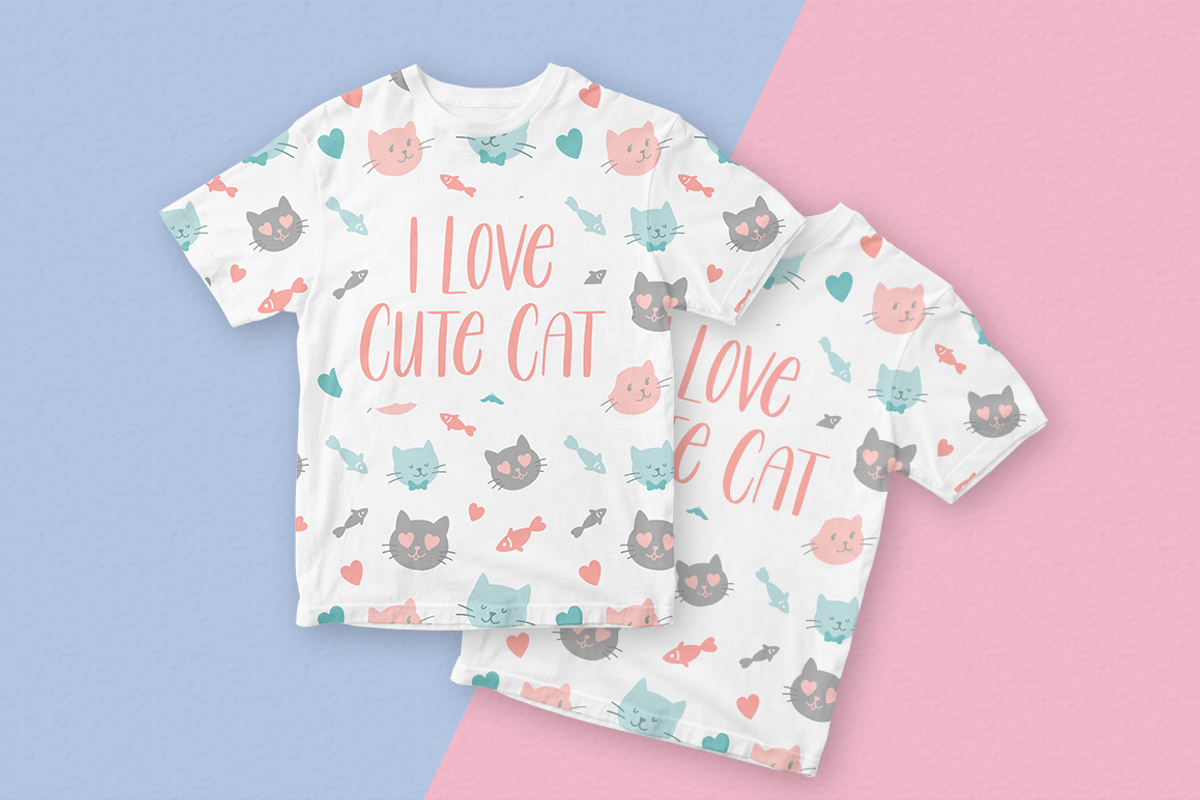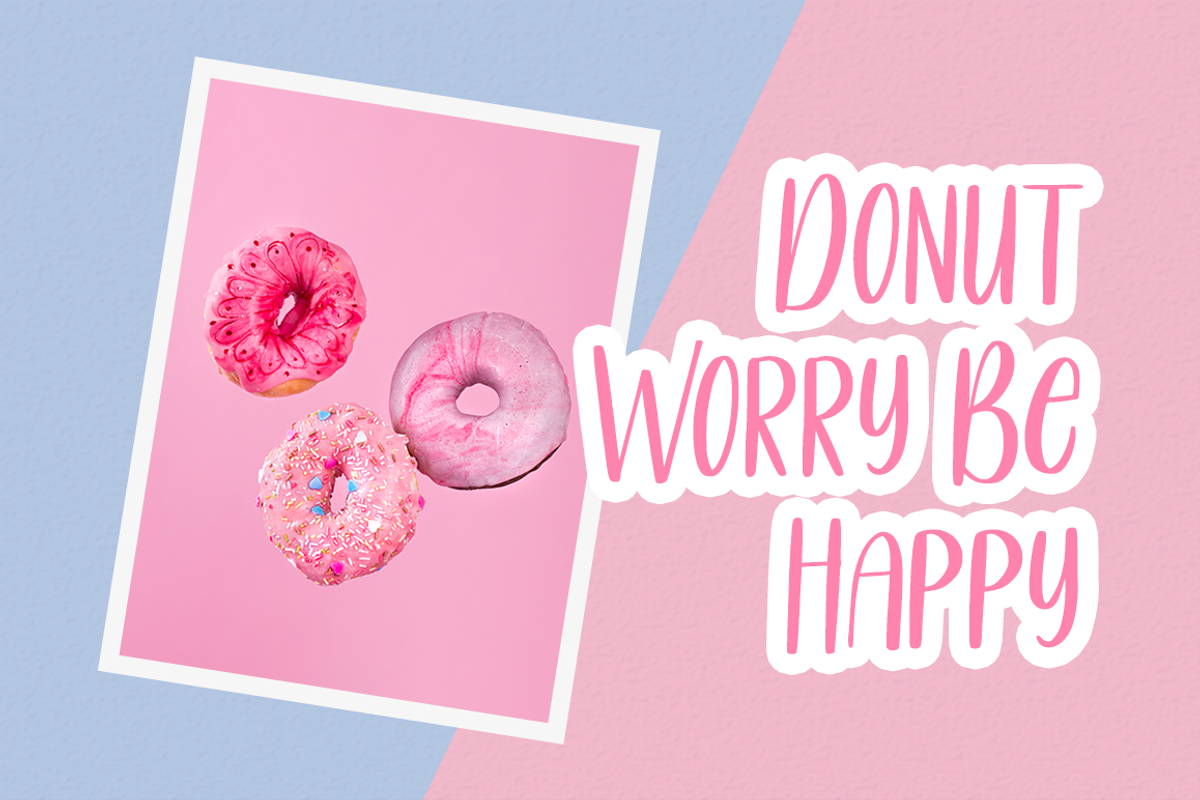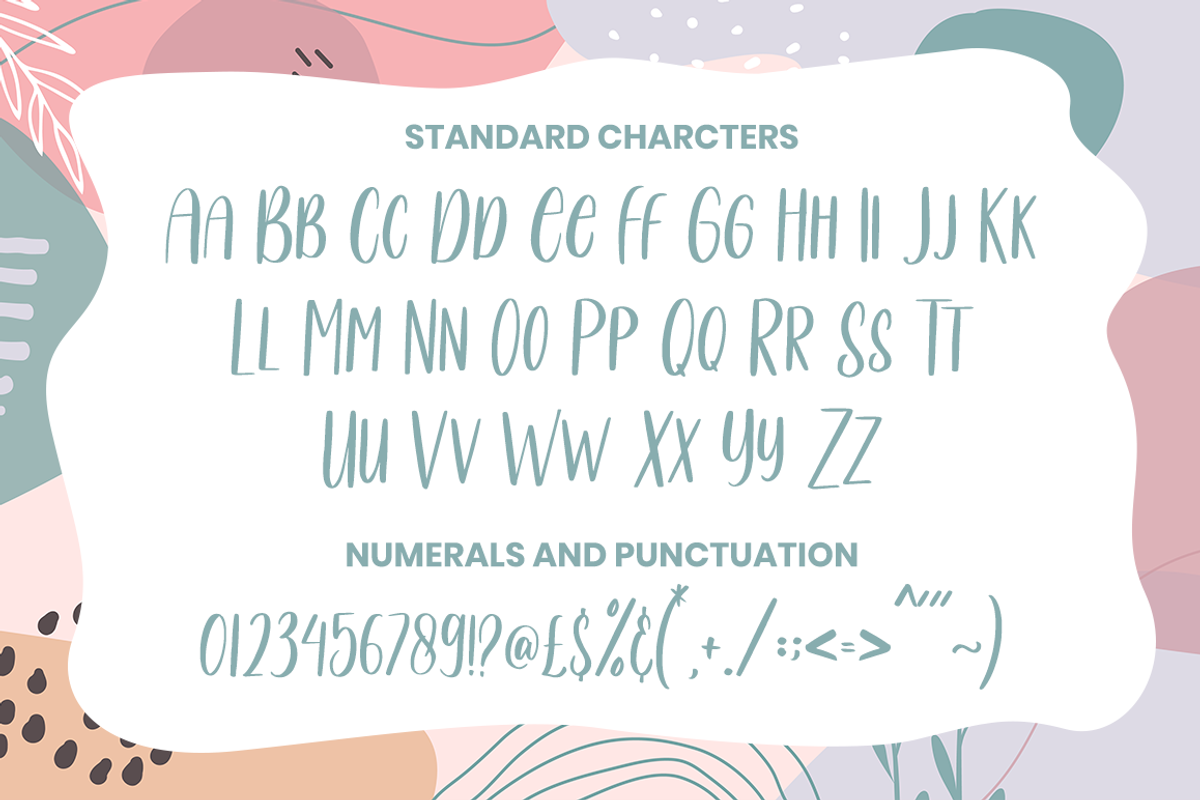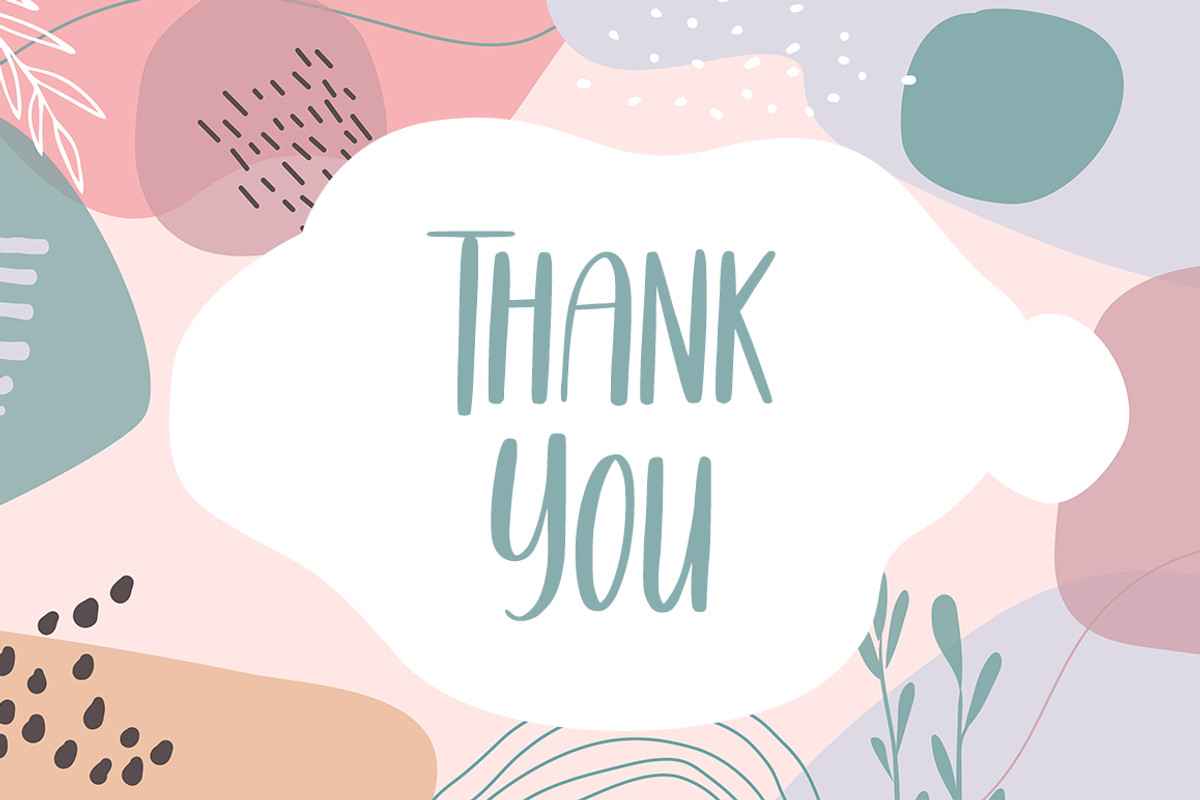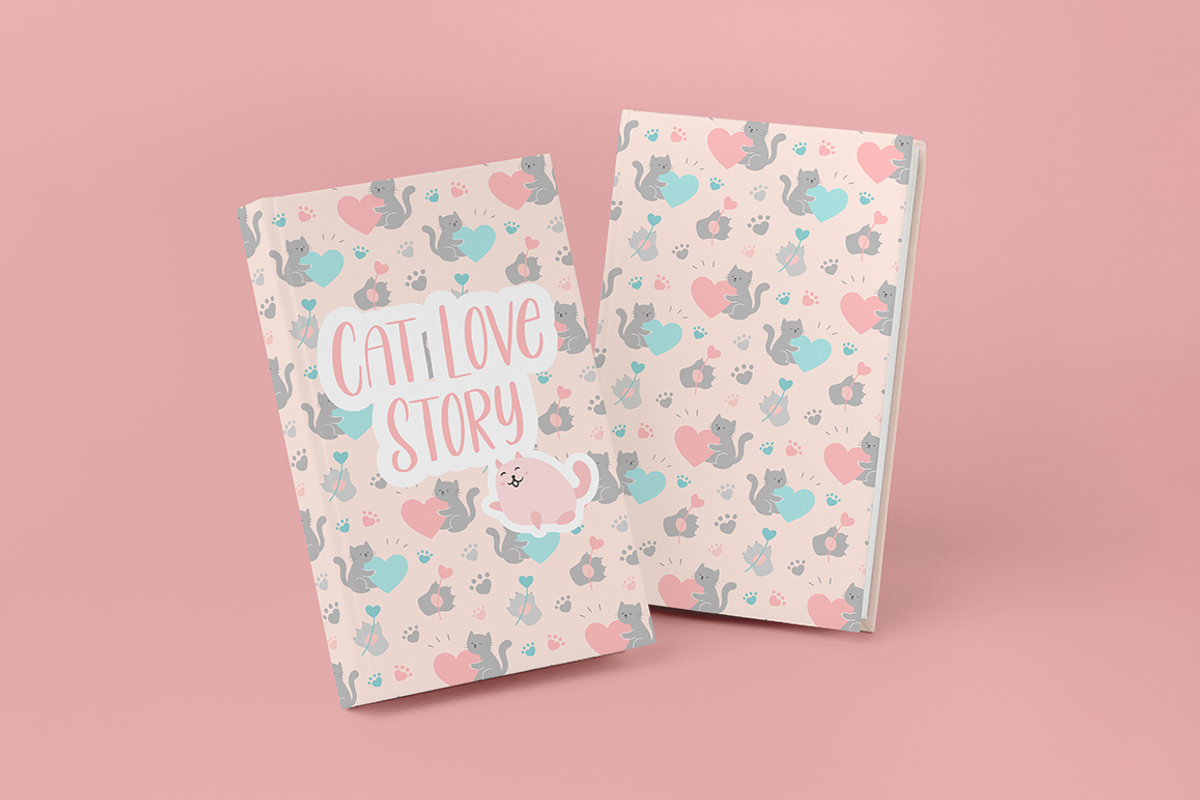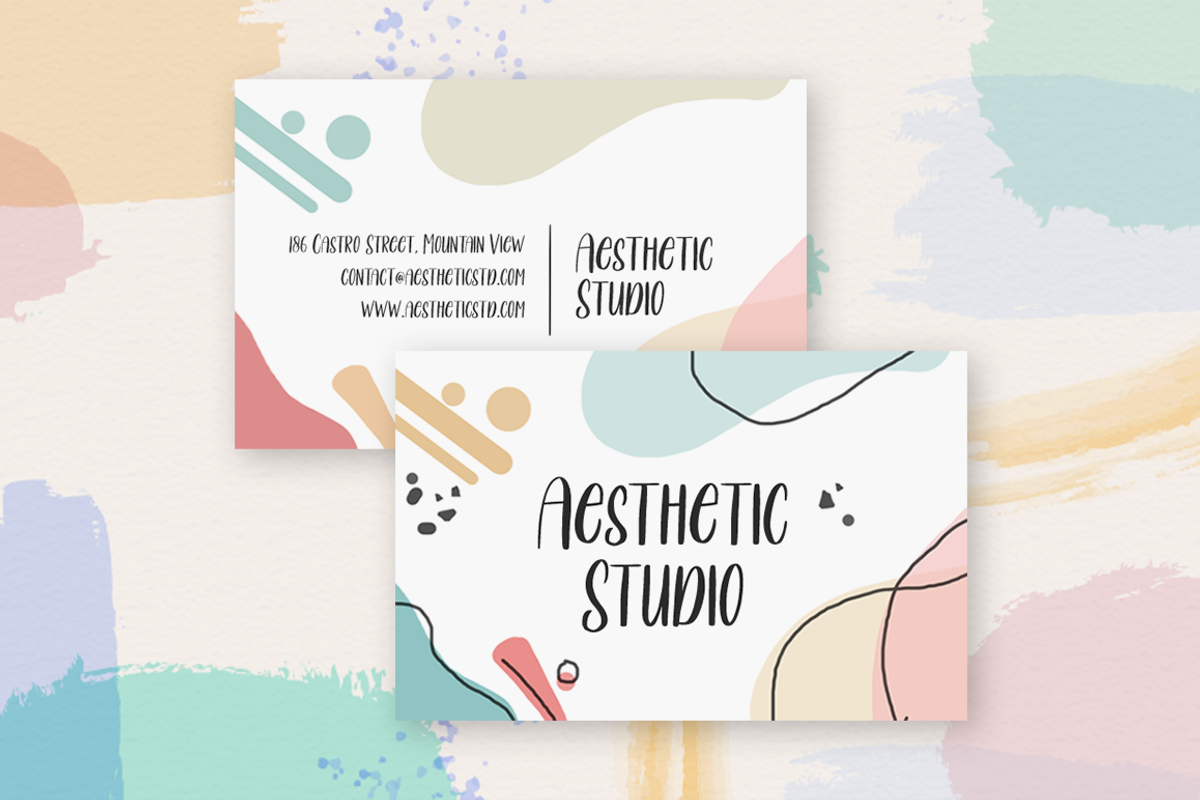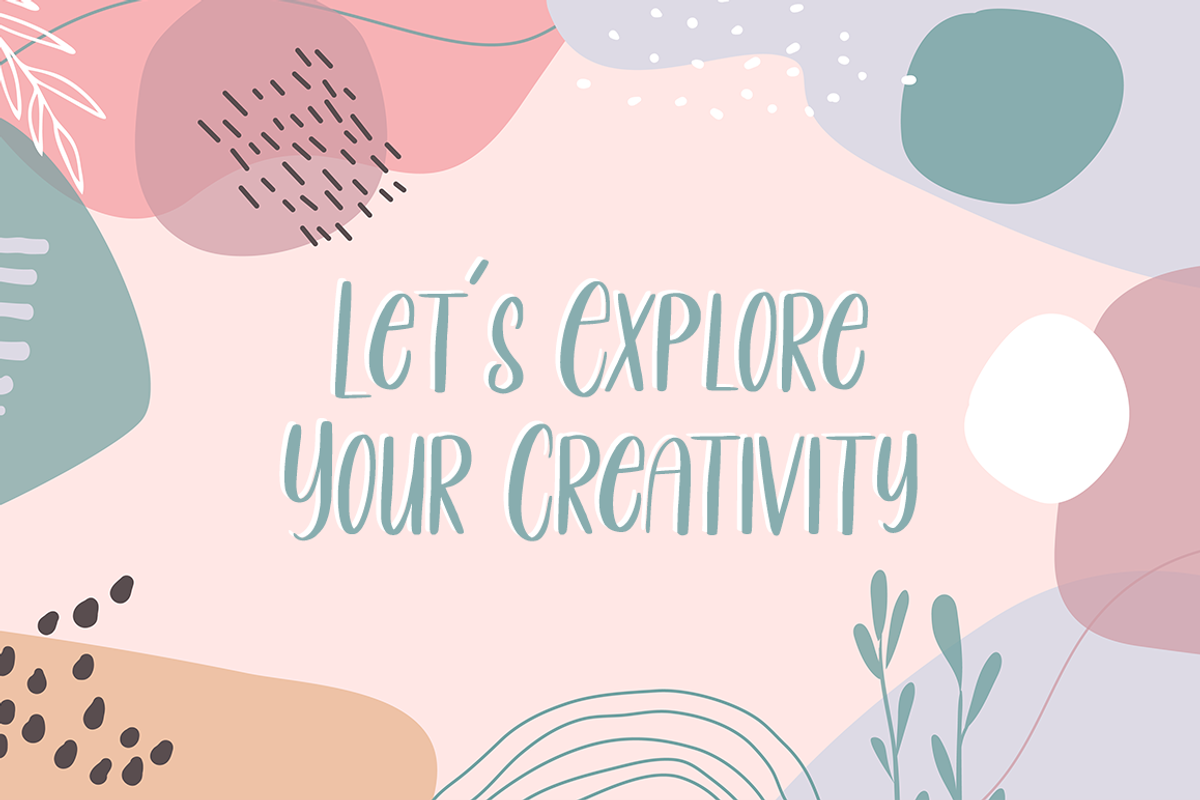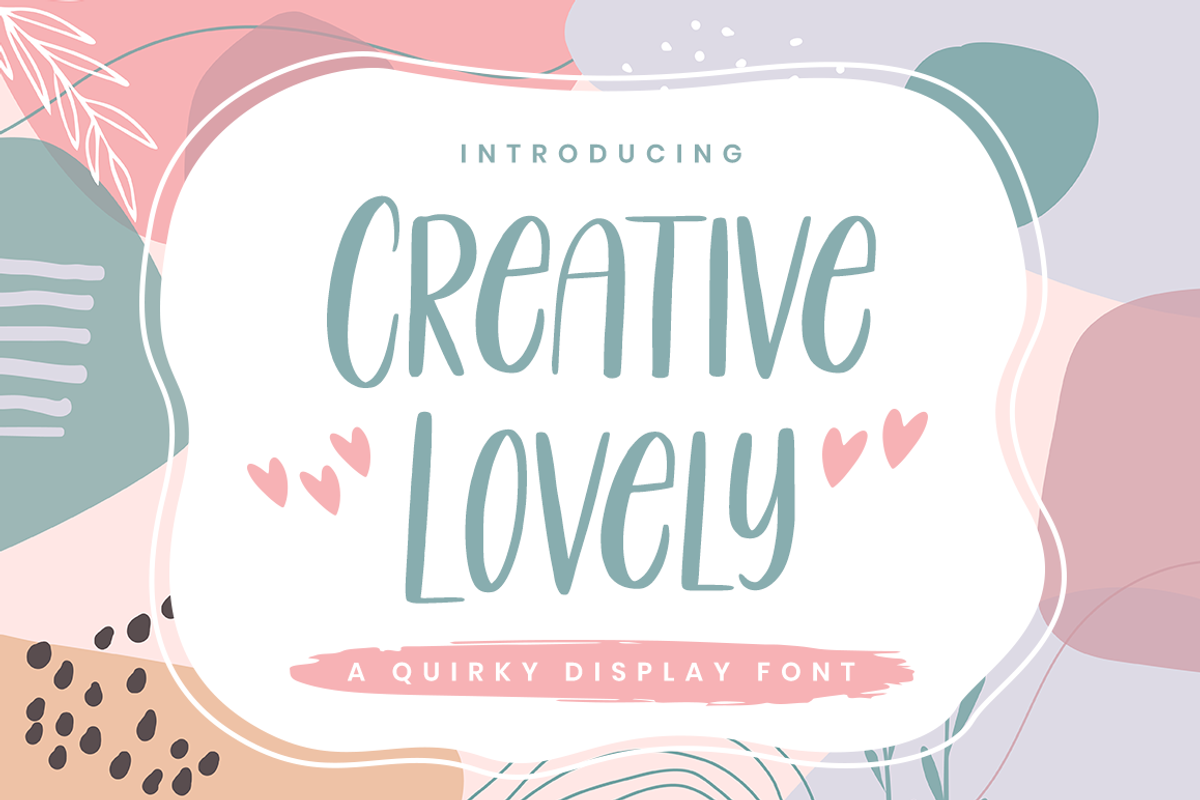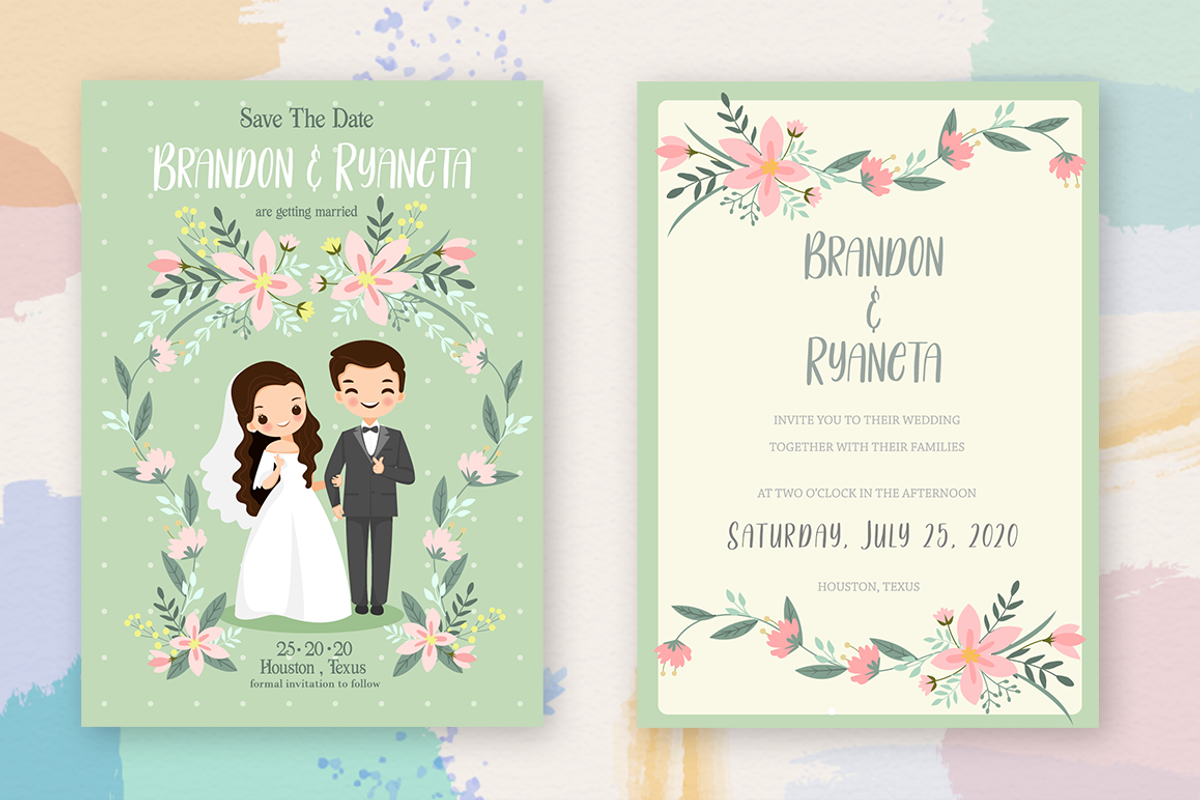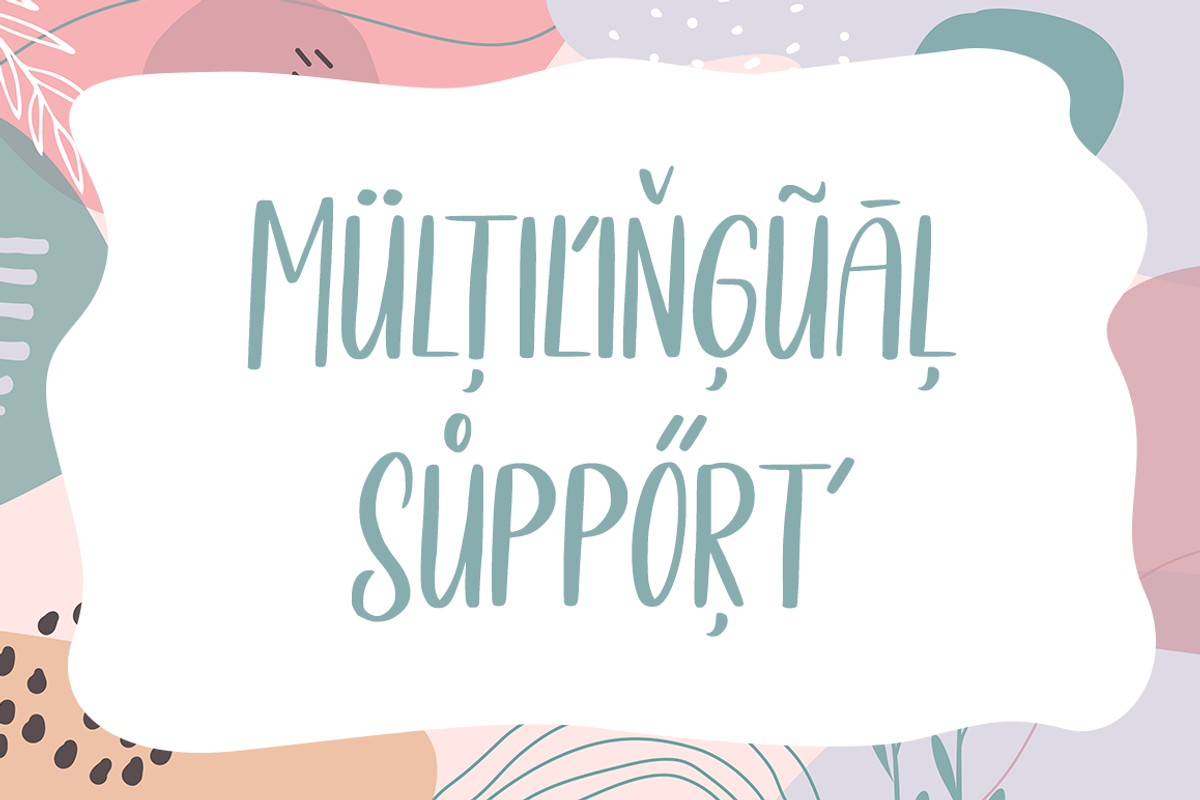
Creative Lovely Font
Creative Lovely is a magical handwritten font, carefully created with a touch of elegance. Fall in love with its authentic feel and use it to create gorgeous wedding invitations, beautiful stationary art, eye-catching social media posts, and much more!